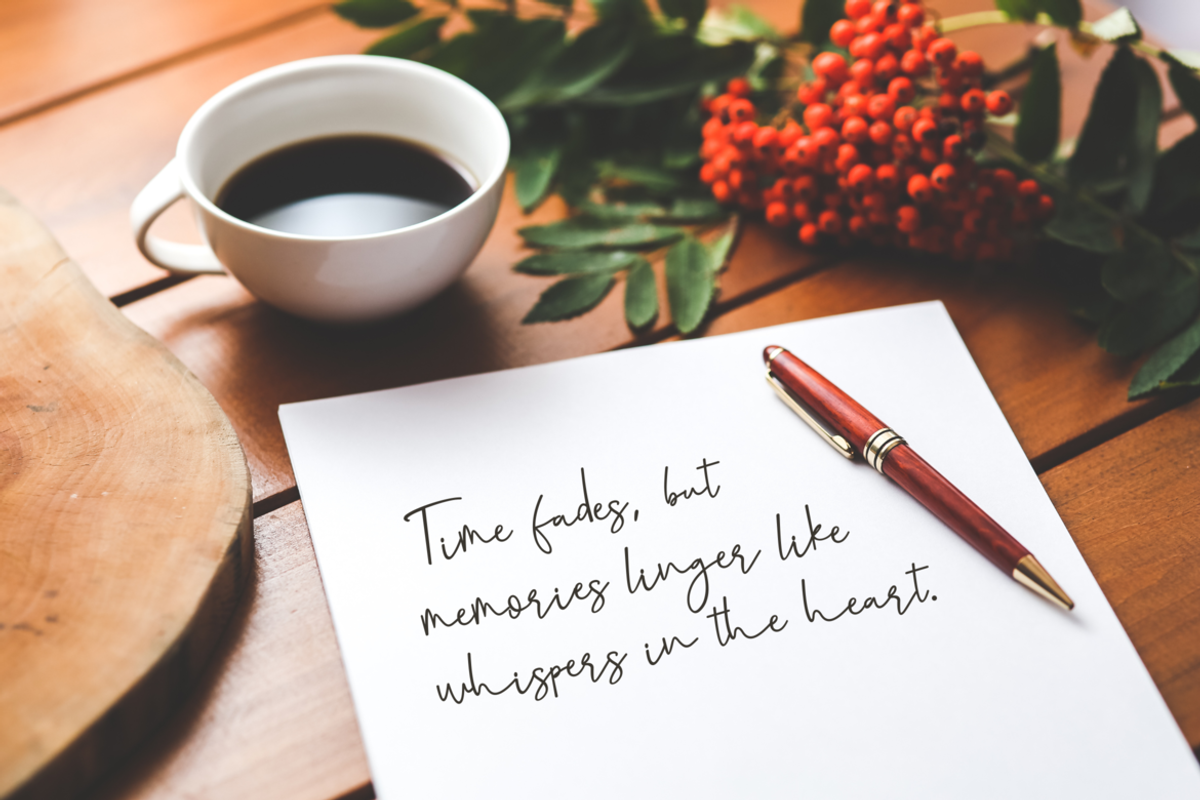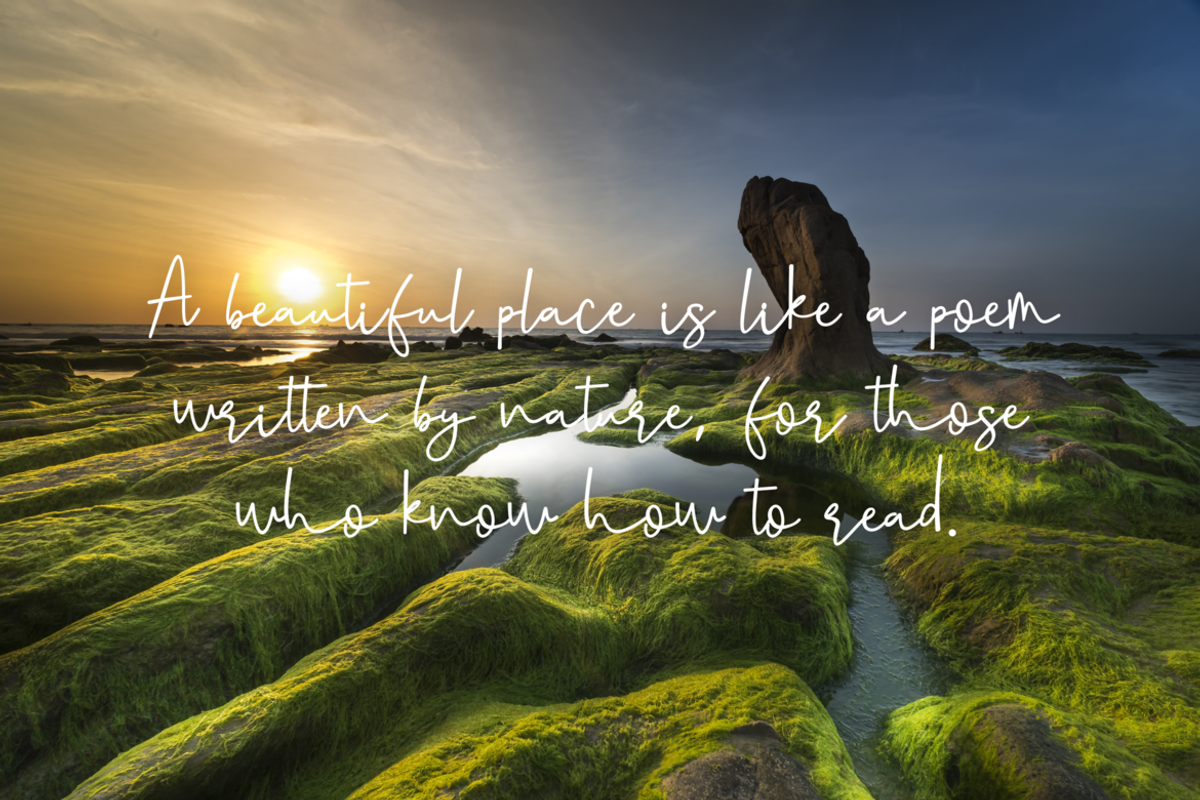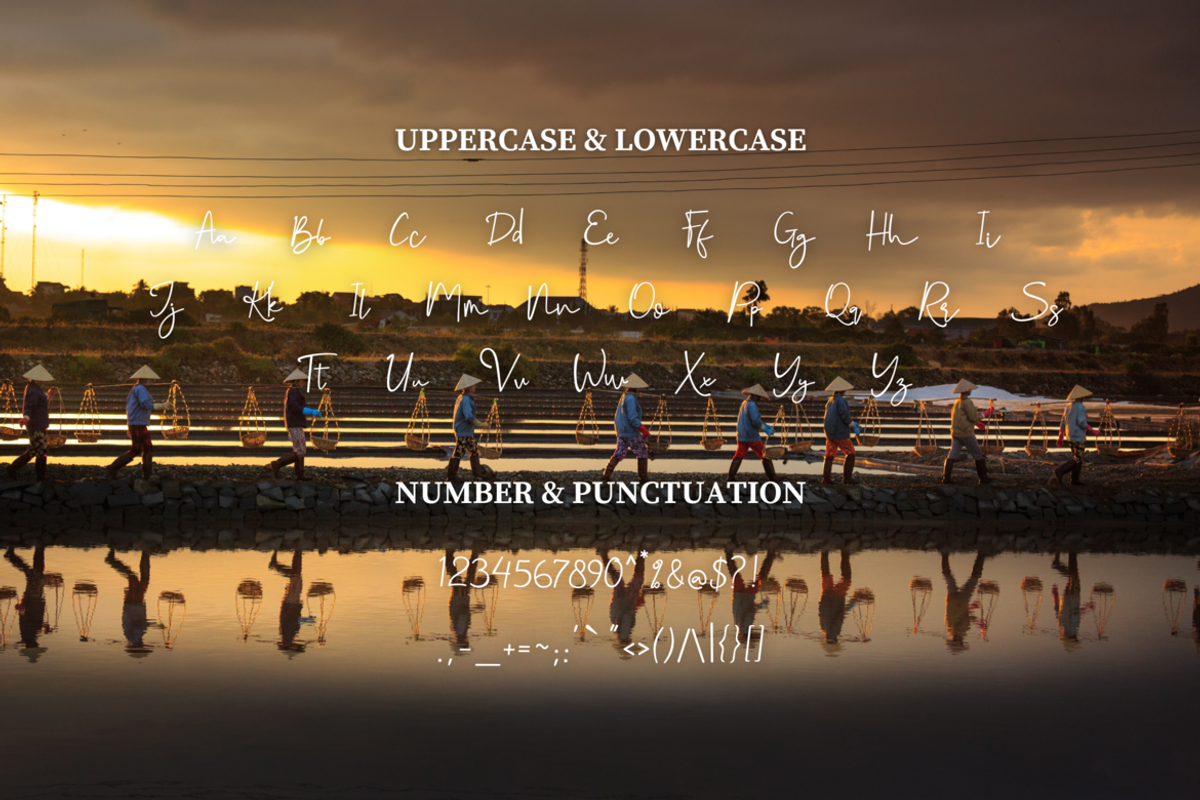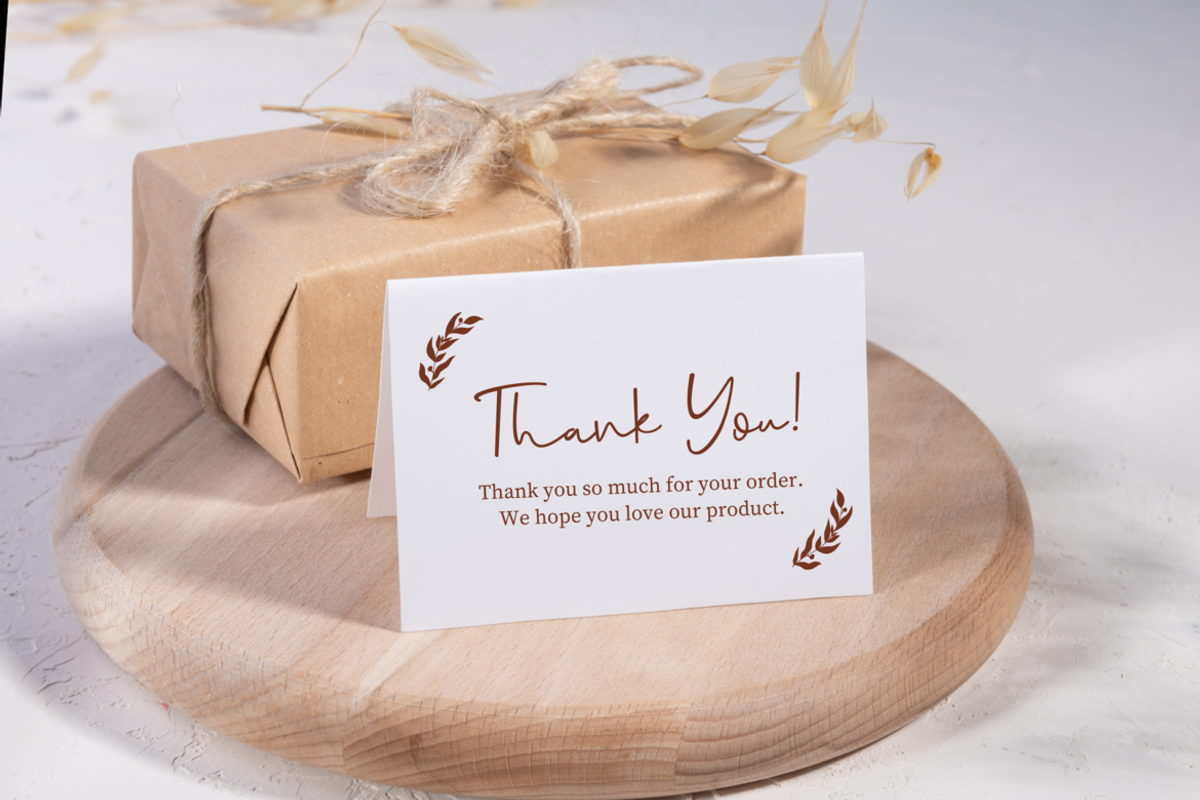
Bersambung | Handwritten Font
For your creative project, use the Bersambung-themed handwritten font. Handwritten font script is appropriate for every kind of design you produce, including greeting cards, posters, logos, and branding.